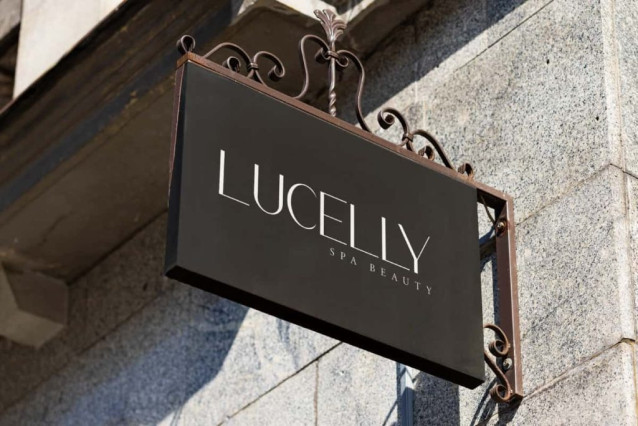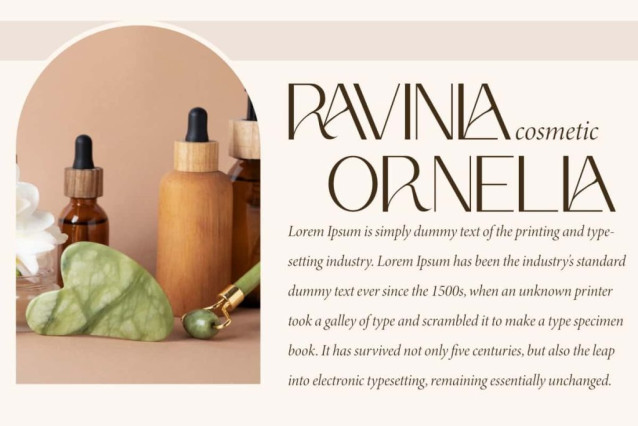
Anna Ciara Font
Anna Ciara Font is a sophisticated sans serif font with beautiful ligatures. This font is a representation of a particular brand name symbol that can work at both large and small sizes. Great for creative designs, such as blogs, calendar design, headers, label, logo, mockup, packaging, poster, printed materials, quotes, signage, stickers, title, website and more!
Anna Ciara Font includes full set of Uppercase and Lowercase Basic Characters, Numbers, Punctuation, Symbols and Ligature. This gives the typeface a readable quality and plays an important role in both feminine and masculine nuances. Perfect for advertising, boutique, cosmetic, graphic design, handicraft, perfume store, printing, publisher, spa beauty, etc.